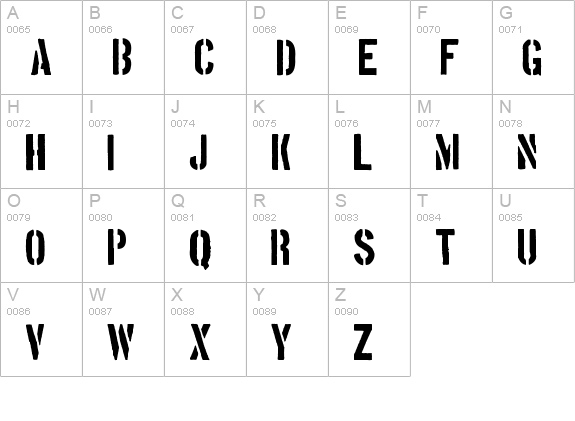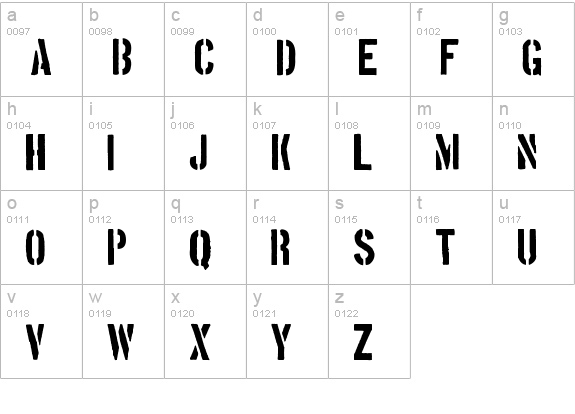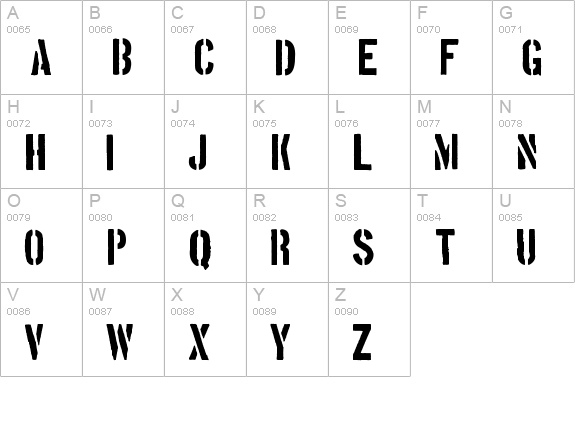
Introducing Boston Traffic font - a sleek and modern typeface perfect for adding an urban edge to your designs. This font features bold lines and sharp angles, reminiscent of the bustling streets and dynamic energy of Boston's traffic. Whether you're working on a poster, logo, or branding project, Boston Traffic font will make your text stand out with its distinctive style. Best of all, Boston Traffic font is completely free to download at FontsMarket.com. Just head to the website, grab your copy, and start incorporating this eye-catching font into your projects today. Don't miss out on this opportunity to add a touch of city flair to your designs with Boston Traffic font!